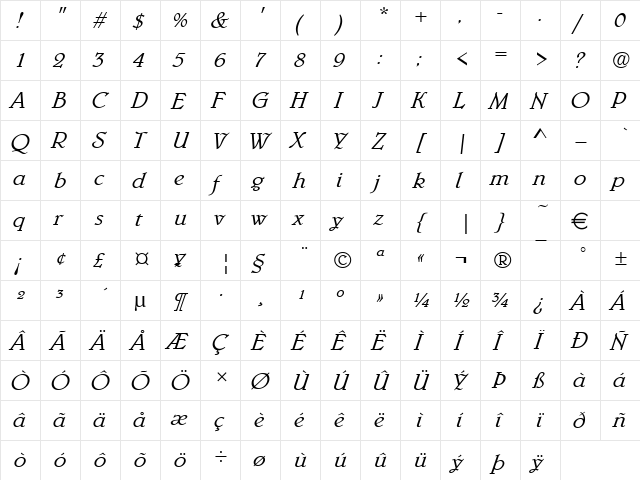
URWBerniniTLig Italic Font Preview
URWBerniniTLig Italic
Design Context for URWBerniniTLig Typeface
URWBerniniTLig is a composed and adaptable typeface that performs quietly and consistently across a wide range of design contexts. The dynamic lean of this cut emphasises speed and emphasis in any layout.